Ever wonder why some designs instantly make you think of swaying hammocks and steel drum music, while others just… don’t? The secret sauce is often hiding in plain sight: tiki fonts.
I’ll be honest – I used to think all tropical fonts were basically the same. Slap some bamboo texture on any old typeface, call it “Island Breeze,” and boom, you’ve got yourself a tiki font. Boy, was I wrong.
The truth is, authentic tiki typography is an art form that’s been perfected over decades. We’re talking about fonts that don’t just look tropical – they feel tropical. The kind of typefaces that make your brain immediately start planning your next vacation to somewhere with zero cell service and unlimited piña coladas.
And right now, in 2026, these fonts are absolutely everywhere. Craft breweries are using them for their summer ales. Wedding planners are incorporating them into destination ceremonies. Even tech startups are embracing tiki vibes to stand out from the sea of sterile sans-serifs.
But here’s the catch: with great tiki power comes great responsibility. Choose the wrong font, and your tropical paradise turns into a cheesy tourist trap faster than you can say “aloha.”
The 20 Best Tiki Fonts for [Year]
Tikiland
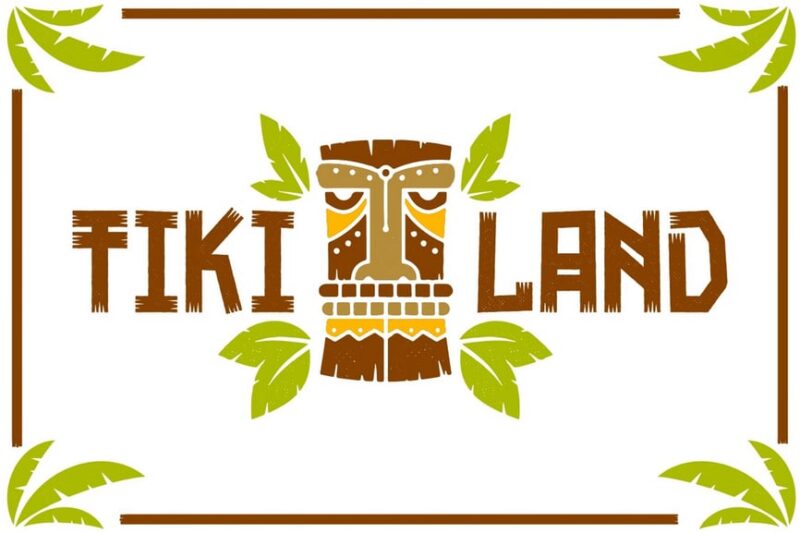
Tikiland is a fun and unique display font that combines sans-serif style with tiki and ethnic elements. This for creating eye-catching designs with a tropical or exotic flair, ideal for beach-themed projects or culturally inspired graphics.
Tiki Tropic
Tiki Tropic is a tropical font with decorative elements, designed evoke a vacation and tropical atmosphere. Its design is well-suited for creating logos, headlines, or branding materials for resorts, travel agencies, or tropical-themed events.
Pokinca
Pokinca is a decorative font that incorporates surf and tiki themes into its design. This playful typeface is excellent for creating eye-catching titles, posters, or branding materials for beach-related businesses or surf culture-inspired projects.
Mokila
Mokila is a Hawaiian font with a captures the essence of Hawaiian culture and summer vibes. Its clean lines and subtle tropical influence make it versatile for various design projects, from travel brochures to summer event promotions.
Kaholy
Kaholy is a summer condensed font that blends sans-serif and decorative styles with surf and tiki elements. This font’s narrow design makes it ideal for headlines or logos where space is limited, while still maintaining a strong summer and beach theme.
Tokide Font
Tokide is-serif typeface that combines electric and Minecraft-inspired elements. Its font is perfect for creating designs with a modern, digital feel, suitable for tech-related projects, gaming graphics, or futuristic concepts.
Naluka
Naluka is a fun nature font with decorative elements that tiki and summer themes. This versatile typeface comes with additional design elements, making it ideal for creating cohesive branding materials or themed graphics for tropical or cultural projects.
Wakiki
Wakiki is a sans-serif font that incorporates tiki and beach elements into its design. Its playfont is perfect for creatingful typeface is perfect for creating fun, summer-themed designs, beach party invitations, or tropical branding materials.
Aloha Dance
Aloha Dance is a quirky and playful font that combines script and handwritten styles with dance and beach themes. This lively typeface is perfect for creating fun, energetic designs for beach parties, luaus, or tropical-themed events.
Moana Laguna
Moana Laguna is a sans-serif font that blends tiki and Hawaiian influences. Its clean lines and subtle tropical flair make it versatile for various design projects, from travel brochures to resort branding materials.
Sukilo
Sukilo is a unique font that combines script, handwritten, and decorative styles with tiki and heavy metal influences. This bold typeface is perfect for creating edgy designs with a tropical twist, ideal for rock-themed beach events or alternative tropical branding.
CABO BLANCCO
CABO BLANCCO is a sans-serif, decorative font that captures the essence of tropical and Hawaiian themes. Its bold, stylized design makes it perfect for creating eye-catching headlines, posters, or branding materials for tropical destinations resorts or vacation destinations.
Tahiti Sans
Tahiti Sans is a geometric sans-serif font with tiki influences. Its clean, modern design with paired with subtle tropical elements make it versatile for various design projects, from corporate materials to travel tropical businesses to contemporary island-inspired.
So next time you’re working on a project that could use a touch of paradise, don’t settle for generic fonts. Dive into the wonderful world of tiki typography and let these incredible typefaces transport your audience to their own personal tropical getaway.
After all, in the world of design, sometimes the best vacation is just a font choice away. Aloha, and happy designing!